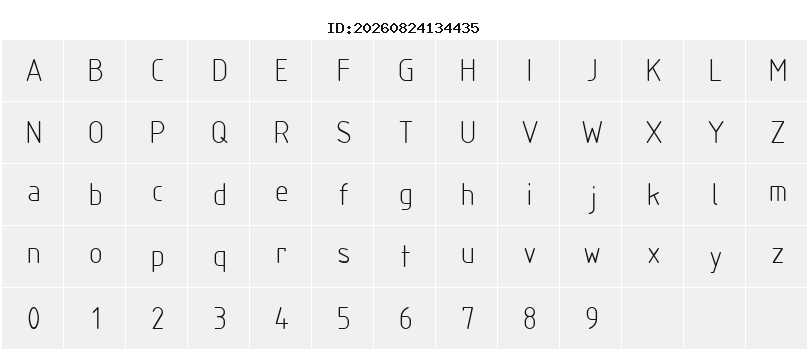
• Font Name: SWIsop3
SWIsop3.ttf is a modern, elegant sans-serif font designed for ultimate readability and visual harmony. Perfect for branding, headlines, web design, and print materials.